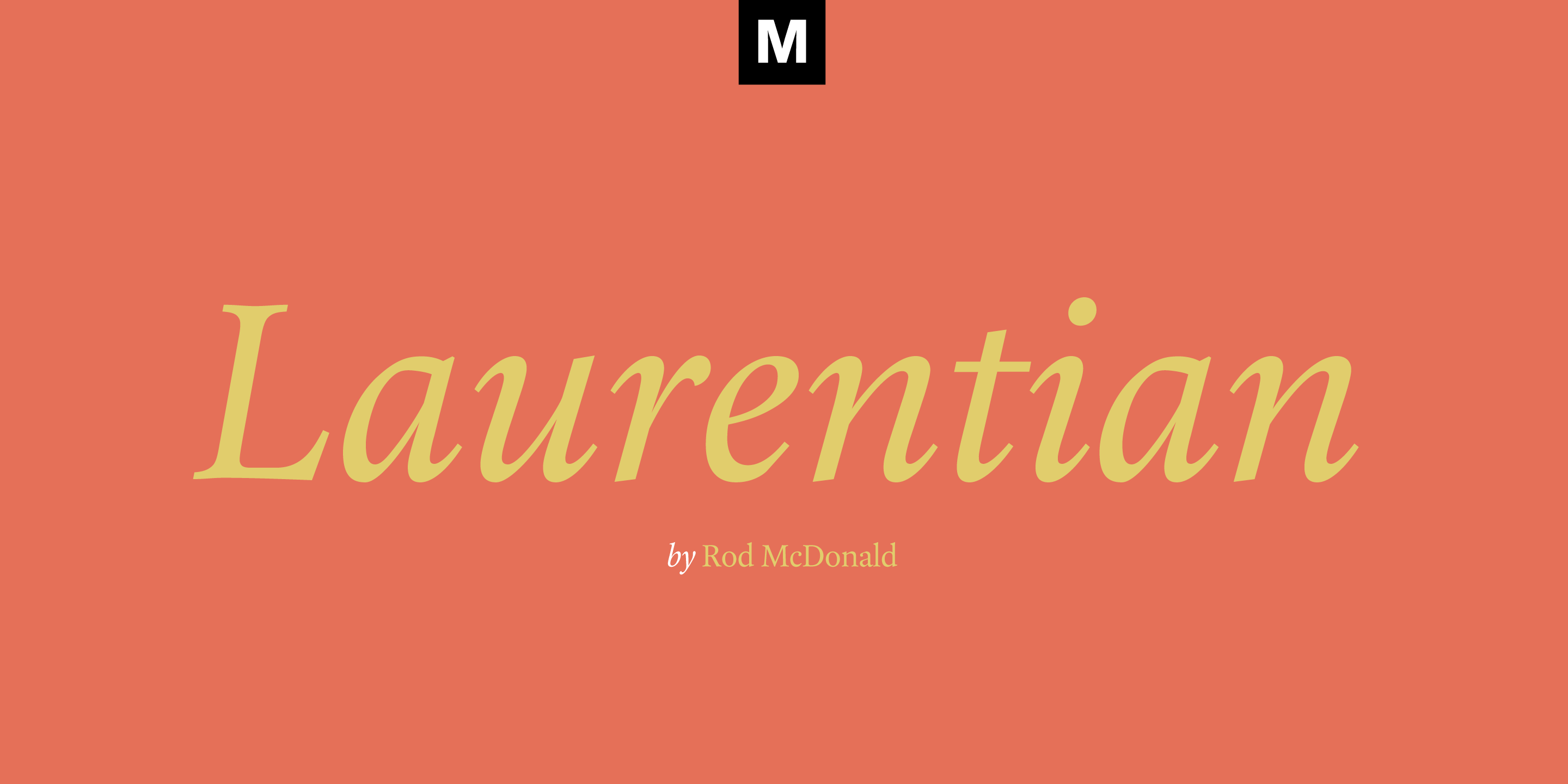
Perfect for Canadian heritage branding, academic institutional materials, historical society publications, government communications, cultural preservation projects, educational textbooks, national park signage, and distinguished civic organization materials.
This font is exciting because it captures the distinguished heritage and institutional gravitas of Canadian academic traditions with refined letterforms that embody the scholarly excellence and cultural dignity found in established educational and governmental institutions.
Honor distinguished Canadian heritage with Laurentian Font Free Download, a prestigious typeface that embodies the scholarly excellence and institutional dignity of Canada's most respected academic and cultural institutions. This exceptional font brings the refined sophistication and cultural authority of Canadian educational heritage to contemporary design projects, making it indispensable for organizations seeking to convey institutional credibility, academic excellence, and the distinguished reputation that defines Canada's most prestigious establishments.
Laurentian Font features elegantly crafted letterforms with academic characteristics and institutional proportions that immediately communicate scholarly authority and cultural distinction. The carefully balanced characters combine Canadian heritage aesthetics with contemporary functionality, creating immediate associations with educational excellence, institutional credibility, and the distinguished reputation that defines Canada's most respected universities, government institutions, and cultural organizations throughout the nation's history.
The font's remarkable institutional presence makes it ideal for universities, government agencies, and cultural institutions where conveying academic authority and Canadian heritage is essential for establishing credibility and maintaining institutional prestige. Whether you're designing materials for prestigious Canadian universities celebrating academic traditions, creating communications for federal government departments requiring institutional dignity, or developing brand identities for cultural organizations preserving Canadian heritage, Laurentian Font delivers the authentic Canadian academic aesthetic that resonates with audiences expecting institutional excellence and scholarly distinction.
Canadian institutional professionals and heritage organizations worldwide choose the Laurentian Font Free Download for projects requiring academic credibility and Canadian cultural authority. The font works brilliantly for research institutions advancing Canadian scholarship, museums showcasing national heritage, educational publishers creating Canadian curriculum materials, and any organization seeking to establish connections with audiences who appreciate Canadian academic traditions and institutional excellence over generic approaches.
The comprehensive Laurentian Font family includes multiple weights and variations that work harmoniously together like departments within a distinguished university, enabling institutional communicators to create sophisticated hierarchies for complex academic content. Each variation maintains the signature Canadian character while providing complete design flexibility for diverse institutional applications, from detailed academic publications to bold heritage advertising campaigns that capture attention in competitive educational markets.
This typeface excels in both traditional academic environments where scholarly presentation is paramount and modern institutional contexts where establishing Canadian heritage credibility is crucial for organizational positioning. The font's institutional precision ensures optimal performance across all communication platforms, from academic journals to government publications that must communicate unwavering professional standards and Canadian institutional excellence.
Laurentian Font's academic aesthetic enhances the perceived value of institutional content while maintaining the contemporary relevance necessary for engaging modern Canadian audiences who appreciate educational heritage and scholarly traditions. The font's distinguished character helps establish immediate credibility with academic audiences while projecting the institutional authority that defines Canadian educational leadership.